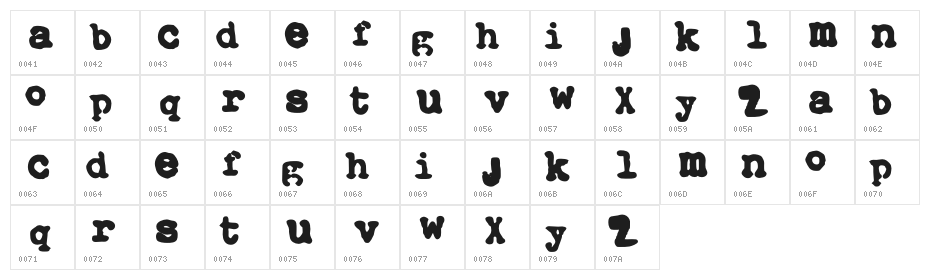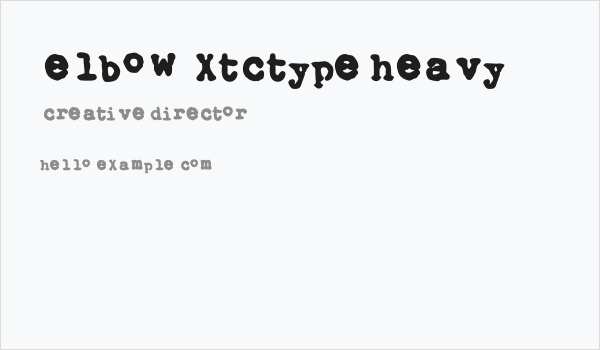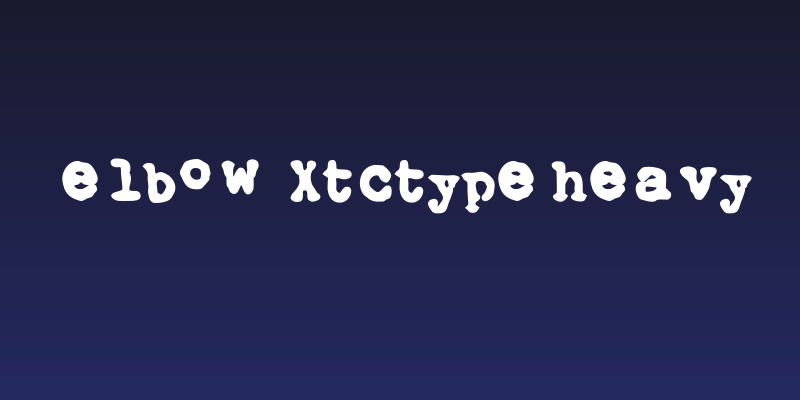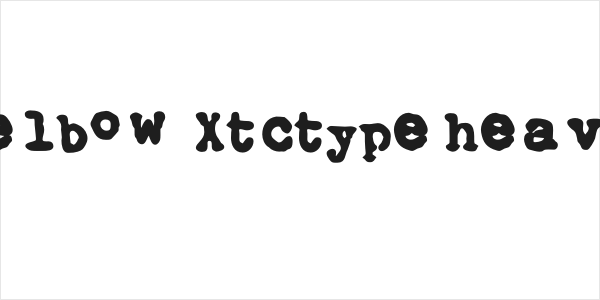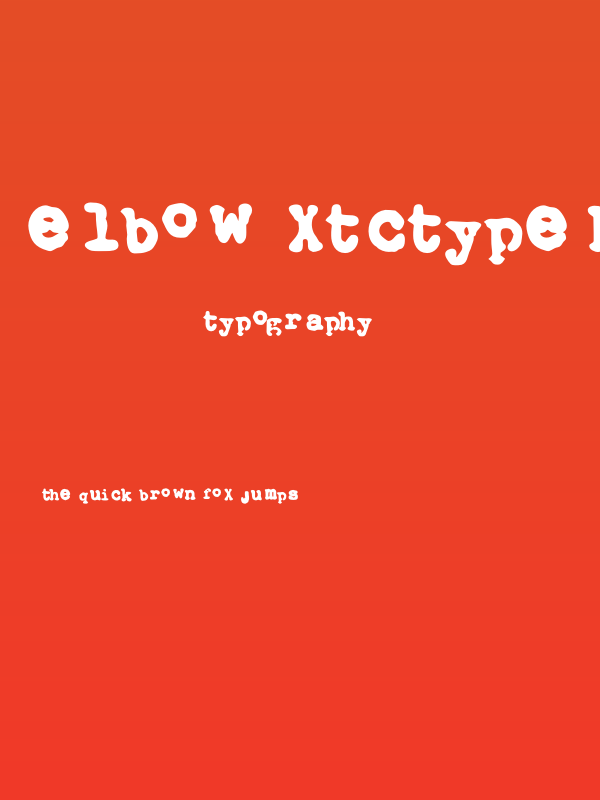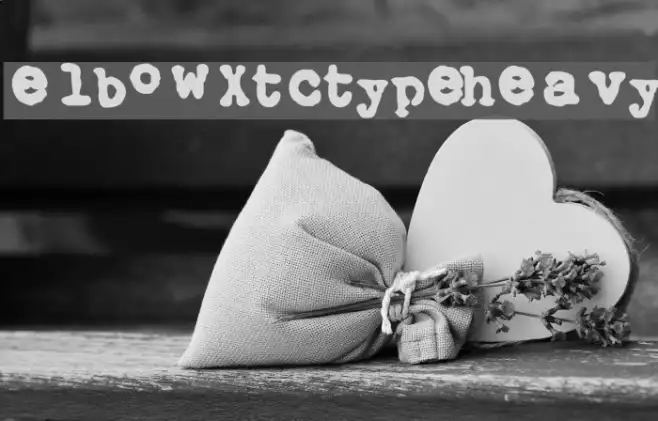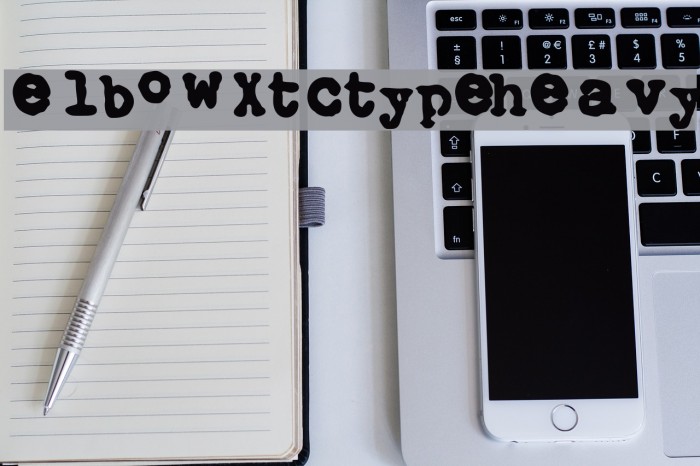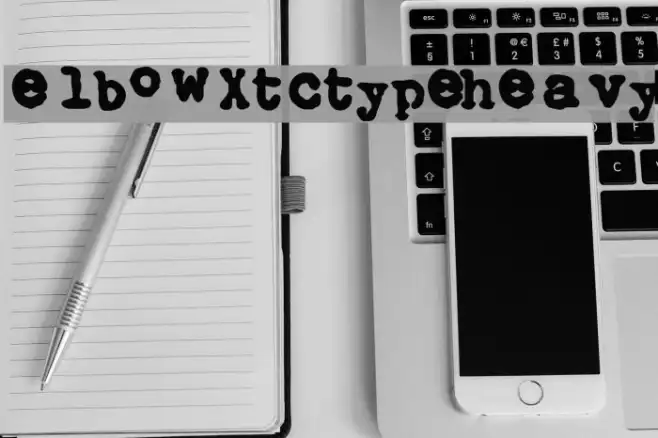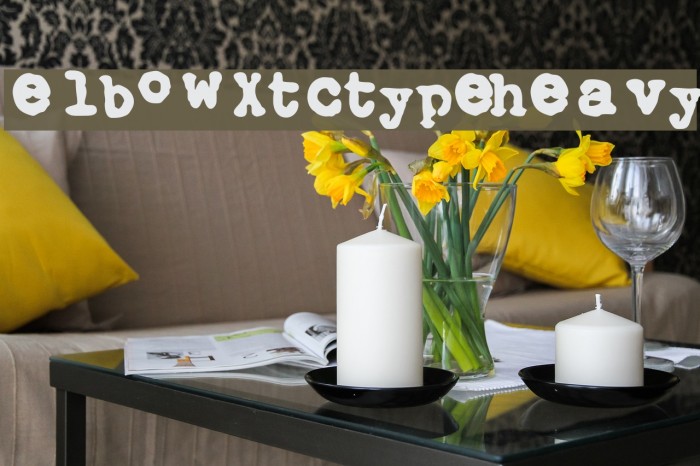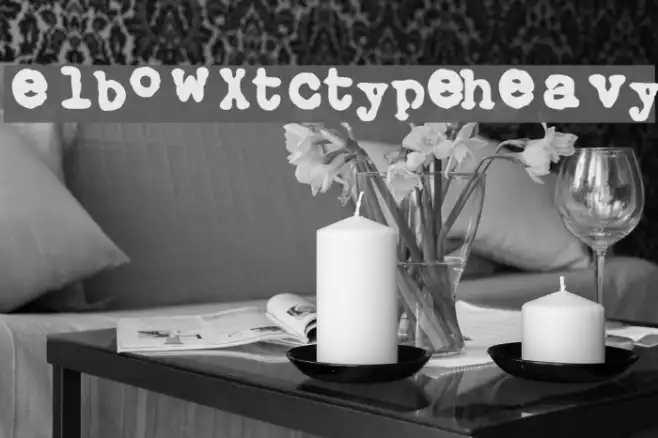
Elbow-xtctype-Heavy Font
Elbow-xtctype-Heavy Description
This font features a bold and heavy style with a playful and quirky appearance. The letters are rounded and have a slightly uneven, hand-drawn quality, giving them a unique and artistic flair. The characters are bold, with thick strokes that create a strong visual impact. The overall design is reminiscent of a vintage typewriter font but with a modern twist, making it suitable for creative and informal projects. The font's distinctive style is characterized by its irregular shapes and whimsical details, which add a touch of personality and charm.
| Overall Style | Vintage, Playful |
| Proposed Projects | Ideal for posters, creative branding, children's books, and playful graphic designs. |